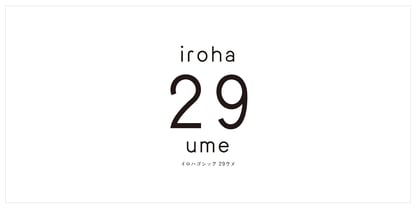
iroha 29ume StdN
by Kinuta Font Factory
iroha 29ume is a mature font that has been subtly tweaked to read elegantly and prettily. The kanji for iroha is common. The design is simple, with straight lines. There are 12 kana in total.
Experience the joy of using different kana characters. When you look at the characters, thoughts and ideas naturally come to mind. Why did it take this form? How would I do it? For example, the font “iroha gothic” from Kijima Type Foundry has 12 different kana characters.Just as there are “voice actors” who convey words through their voices, there should also be “character actors” who convey words through characters. This font was created with that idea in mind. Experience the unique charm of Japanese, which combines kanji and kana, through this font.The richness of language will surely uplift your spirit.